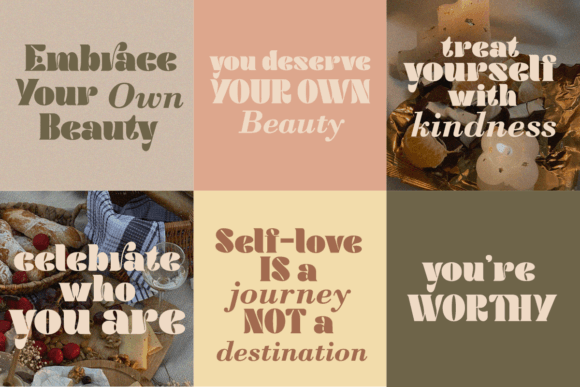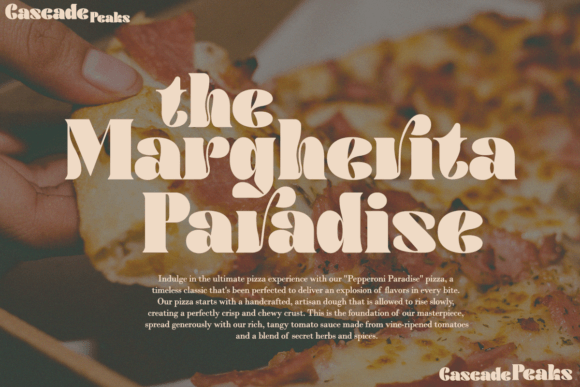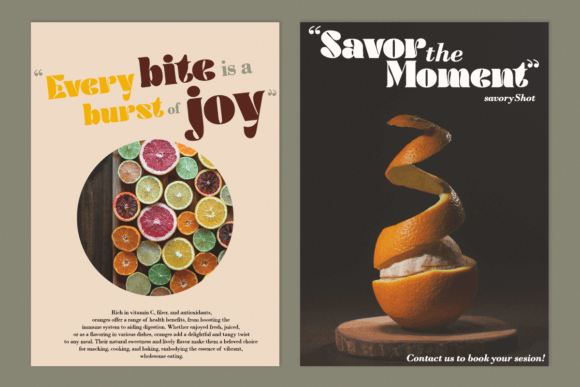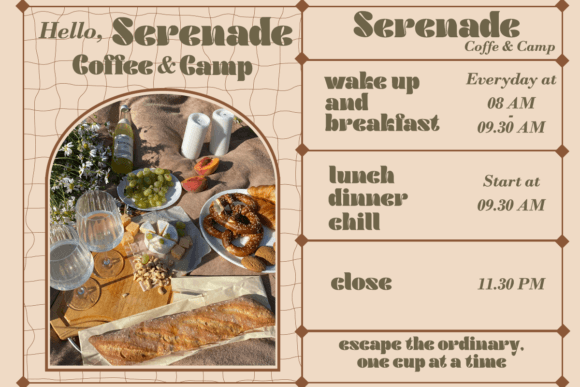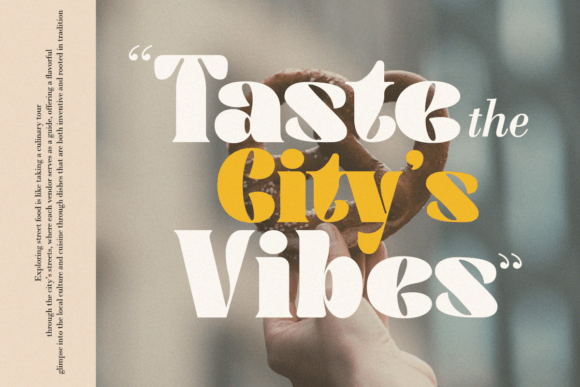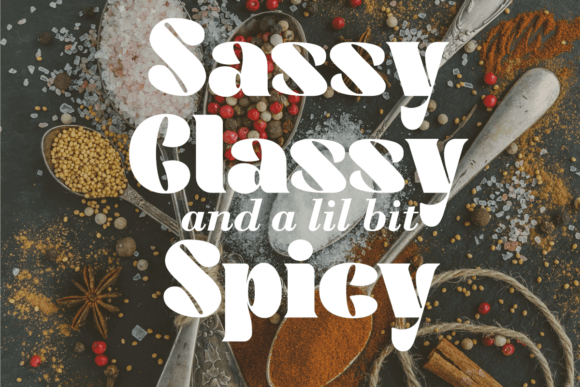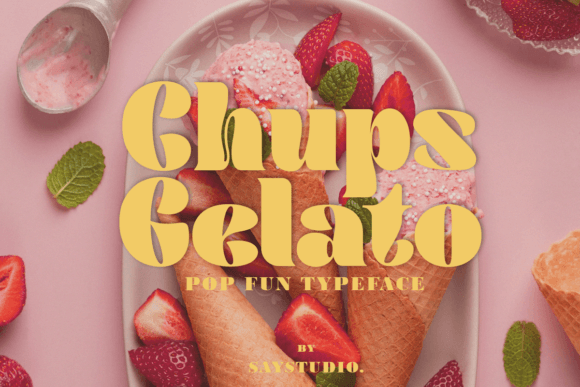
Introducing Chups Gelato Font: The Perfect Blend of Fun and Sophistication
Are you tired of using the same old fonts for your design projects? Look no further than Chups Gelato Font, a pop fun serif font that brings a unique and refreshing twist to the world of typography. With its basic letters and fun, modern look, Chups Gelato is the perfect choice for designers and crafters looking to add a touch of whimsy and sophistication to their work.
A Versatile Font for a Variety of Design Needs
Chups Gelato Font is a very versatile font that can be used for a wide range of design projects. Its clear and bold look makes it perfect for branding design, logos, greeting cards, title packaging, and other designs where you want to make a statement. Whether you’re creating a fun and playful design or a more serious and elegant one, Chups Gelato Font is sure to impress.
What Sets Chups Gelato Font Apart
So, what makes Chups Gelato Font so special? Here are just a few features that set it apart from other fonts:
• Unique Basic Letters: Chups Gelato Font features unique basic letters that give it a distinctive look and feel. Each letter is carefully crafted to be fun, modern, and classic all at once.
• Fun and Modern Look: Chups Gelato Font has a fun and modern look that’s perfect for designers and crafters who want to add a touch of whimsy to their work.
• Clear and Bold: Despite its fun and playful look, Chups Gelato Font is also clear and bold, making it perfect for designs where you want to make a statement.
• Versatile: Chups Gelato Font is a very versatile font that can be used for a wide range of design projects, from branding and logos to greeting cards and title packaging.
Why Designers and Crafters Love Chups Gelato Font
Designers and crafters love Chups Gelato Font for a variety of reasons. Here are just a few:
• Ease of Use: Chups Gelato Font is easy to use and can be easily integrated into a variety of design projects.
• Customization: Chups Gelato Font is highly customizable, allowing designers and crafters to tailor it to their specific needs.
• Uniqueness: Chups Gelato Font is a unique font that stands out from the crowd, making it perfect for designers and crafters who want to create something truly special.
How to Use Chups Gelato Font in Your Design Projects
Using Chups Gelato Font in your design projects is easy. Here are just a few tips to get you started:
• Branding Design: Use Chups Gelato Font to create a fun and playful brand identity that’s sure to stand out.
• Logos: Chups Gelato Font is perfect for creating logos that are both fun and professional.
• Greeting Cards: Add a touch of whimsy to your greeting cards with Chups Gelato Font.
• Title Packaging: Use Chups Gelato Font to create eye-catching title packaging that’s sure to grab attention.
In conclusion, Chups Gelato Font is a unique and versatile font that’s perfect for designers and crafters looking to add a touch of fun and sophistication to their work. With its clear and bold look, unique basic letters, and ease of use, Chups Gelato Font is sure to become a favorite in your design arsenal. So why wait? Download Chups Gelato Font today and start creating designs that are truly one-of-a-kind!